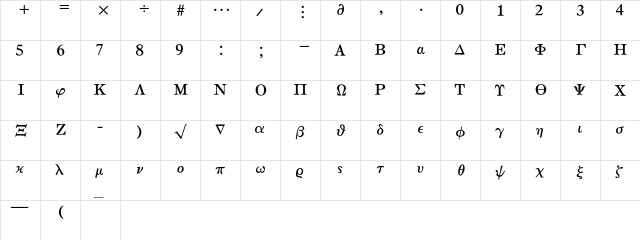
MathTechnical P11 Font Preview
MathTechnical P11
Design Context for MathTechnical Typeface
MathTechnical channels digital-age aesthetics through its sharp, structured letterforms — ideal for brands that want to signal innovation.
Pro Tip: Try MathTechnical with generous letter-spacing in UI labels and navigation — the geometric forms benefit from room to breathe.